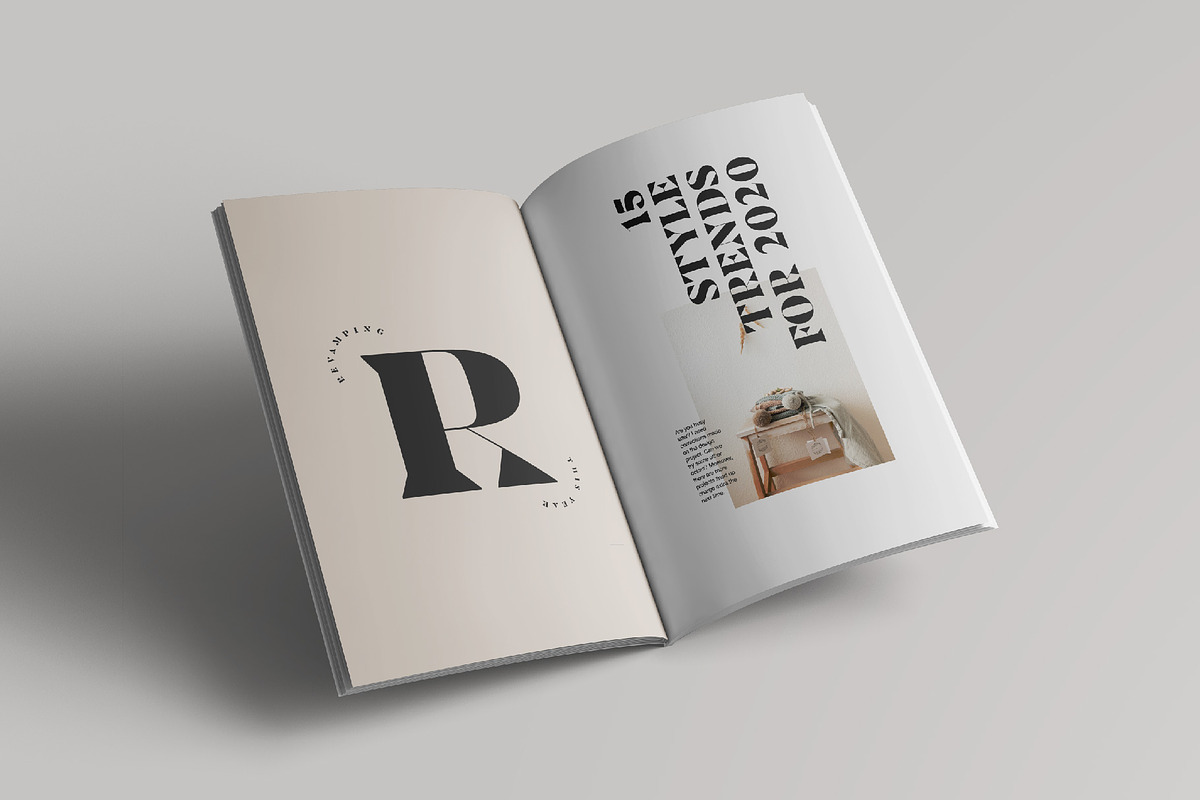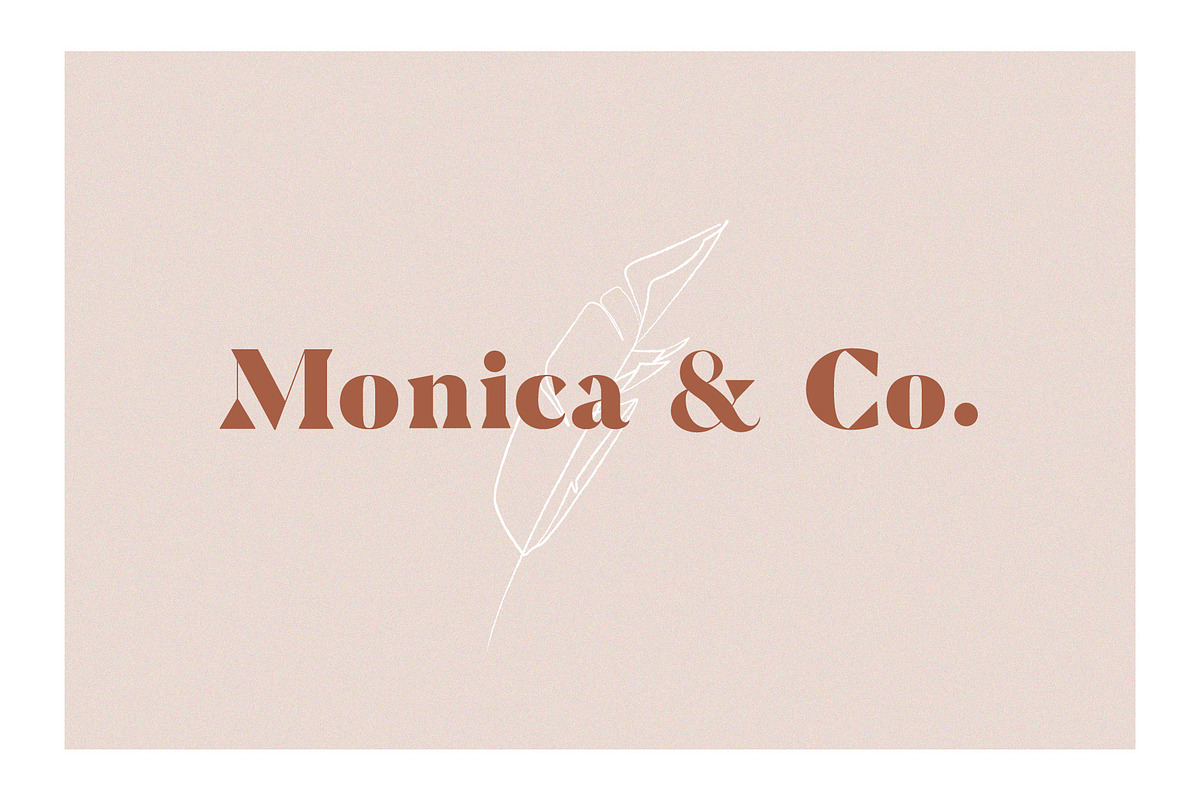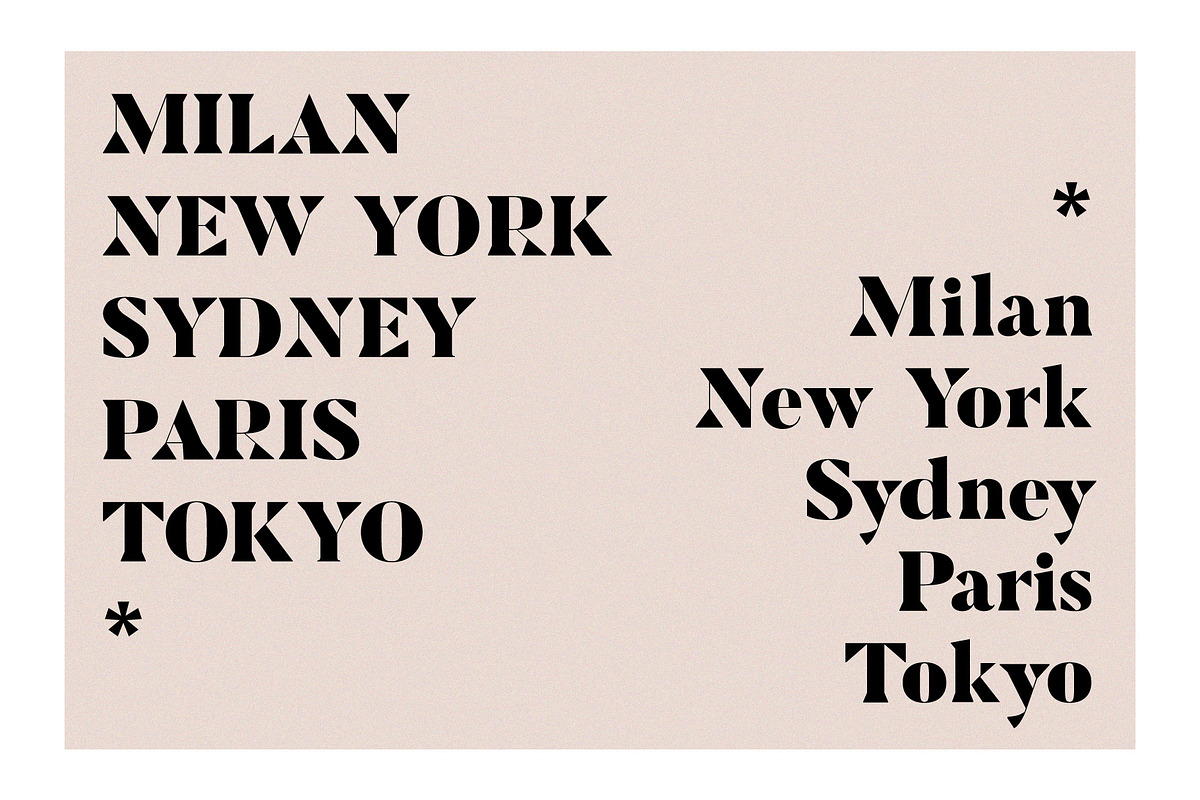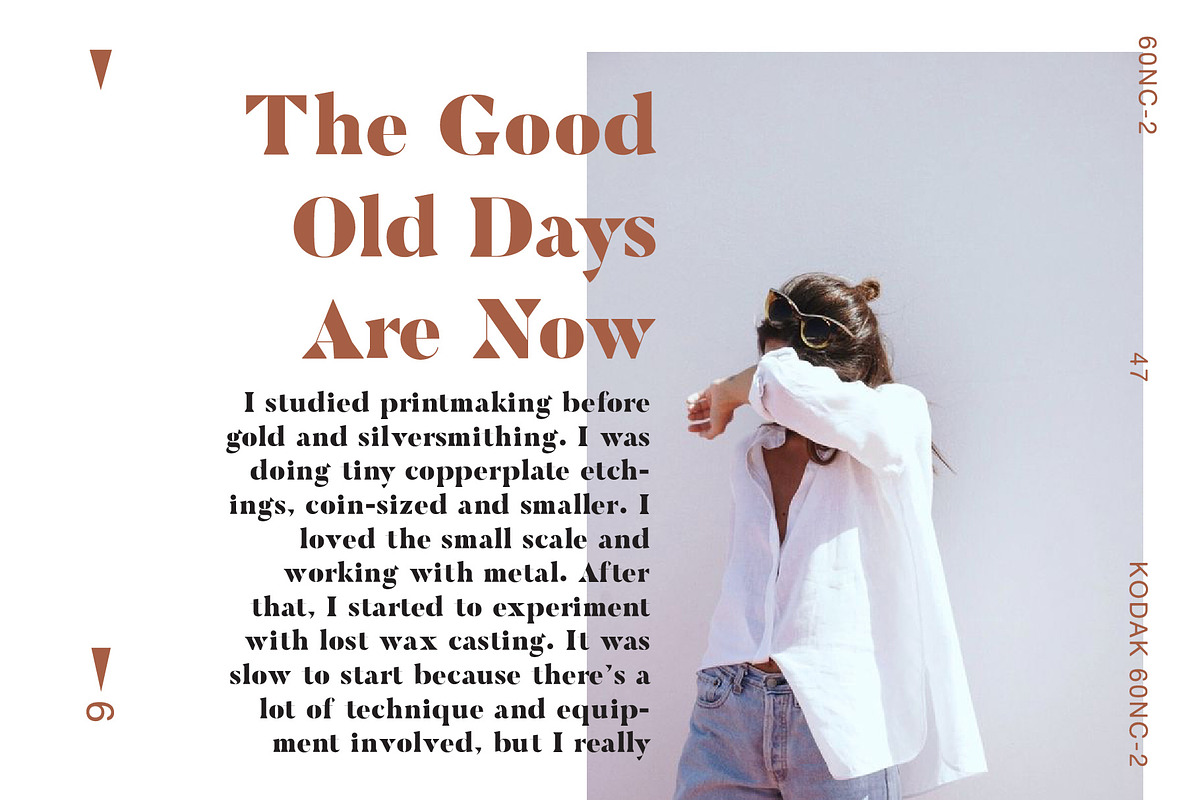
Rockwell Font
Rockwell is a wedge serif font that is sure to stand out! A little bit retro and a bit modern, it is great for logos, editorial or web design. The unique sharp serifs mixed with thin strokes give off a bold mid century architectural vibe.
It is suitable for logo, greeting cards, quotes, posters, branding, name card, stationary, design title, blog header, art quote, typography.